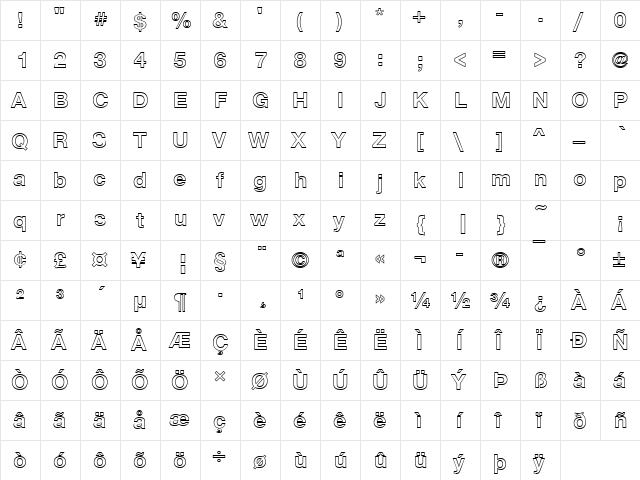
NimbusSanOutDBol Regular
NimbusSanOutDBol offers clean, dependable letterforms without strong stylistic allegiance, making it a practical choice for designers who need flexibility.